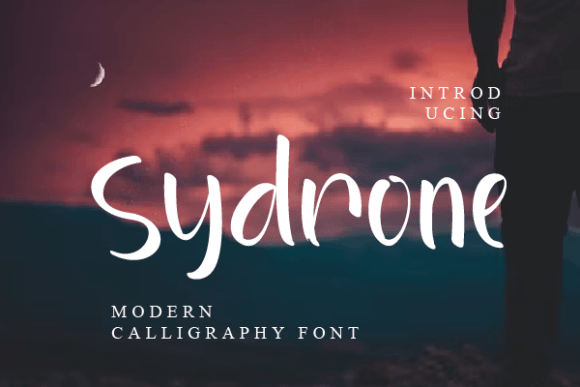
Introducing Sydrone Font – the exquisite script typeface that will captivate your audience and leave an unforgettable impression. Handcrafted with meticulous attention to detail, each letter of Sydrone flows effortlessly like a gentle breeze, evoking a sense of elegance and allure that is sure to make your words dance before their eyes.
Step into a world where your Instagram quotes come alive, adorned with the captivating strokes of Sydrone. Transform your social media presence into a symphony of visual delight, where every post becomes a work of art. Let your words inspire, resonate, and connect with your followers on a deeper level.
Beyond the realm of social media, Sydrone's versatility knows no bounds. It is the perfect choice for wedding invitations, adding a touch of timeless romance to your special day. Create stunning wall displays that evoke a sense of cozy elegance, transforming your home into a sanctuary of inspiration.
For businesses seeking to make a lasting impact, Sydrone offers a powerful tool to elevate your branding. Design eye-catching logos that embody your brand's unique personality, creating a visual identity that resonates with your target audience. Let Sydrone elevate your packaging and product designs, adding a touch of sophistication and charm that will entice customers to reach out and engage with your offerings.
But Sydrone's allure extends far beyond its practical applications. It is a font that speaks to the heart, evoking emotions and stirring the imagination. Its graceful curves and delicate flourishes invite you to unleash your creativity, to explore the depths of your imagination, and to express yourself in a way that is both profound and profoundly beautiful.
With Sydrone Font, the possibilities are endless. Whether you're a designer seeking to create breathtaking visuals, a business owner looking to build a strong brand identity, or simply someone who appreciates the beauty of written words, Sydrone offers a world of inspiration and endless possibilities.
So, allow Sydrone to become your muse, your creative companion, and the key to unlocking the full potential of your words and designs. Let its graceful strokes dance across your screens, your pages, and your heart, leaving an imprint that will inspire, engage, and captivate all who encounter it.